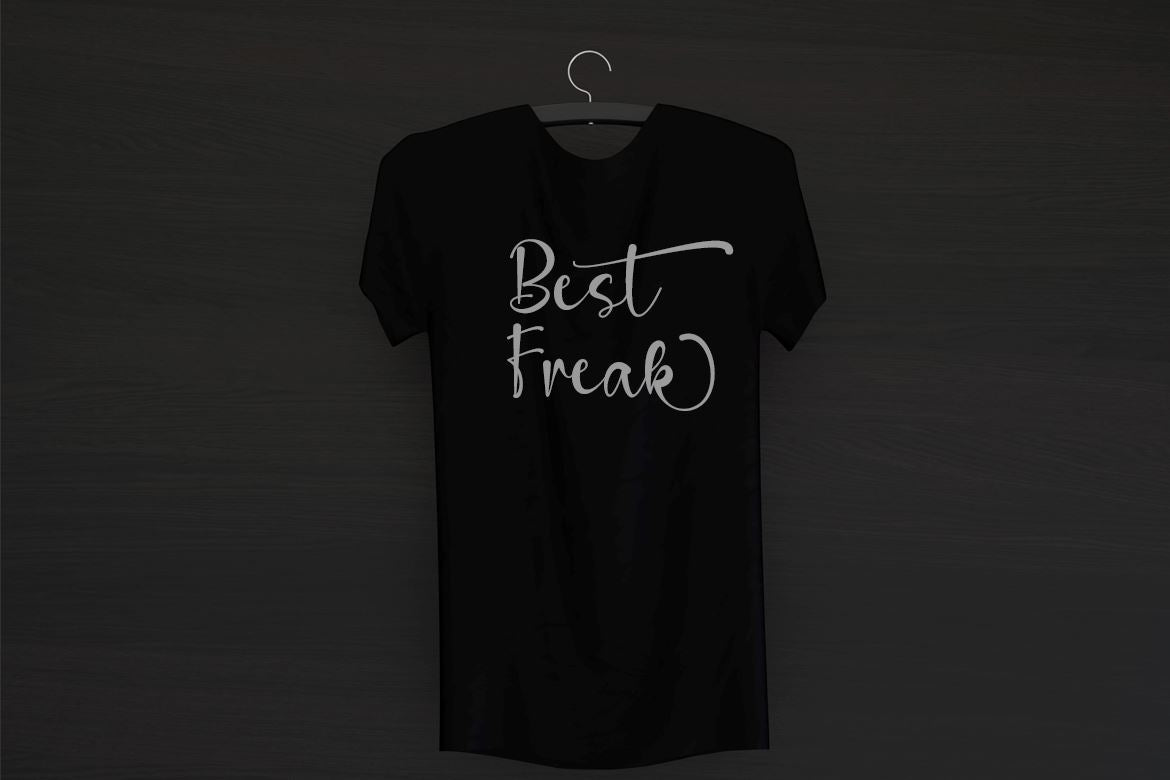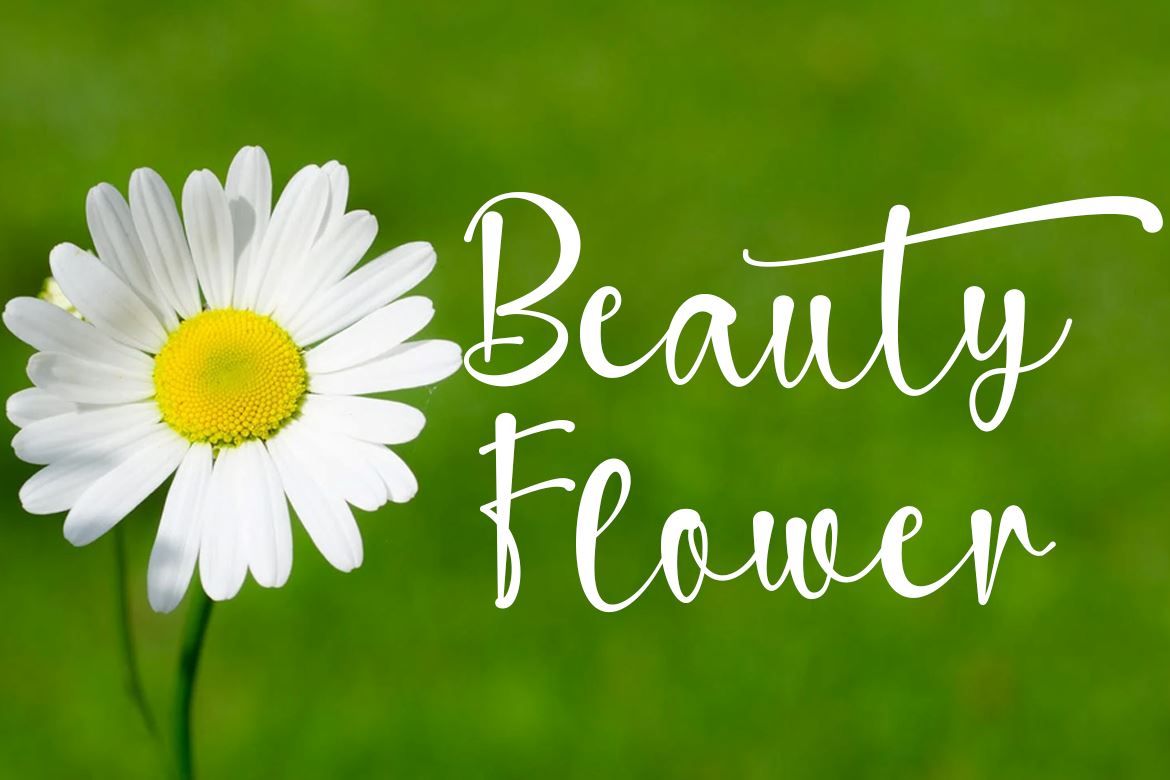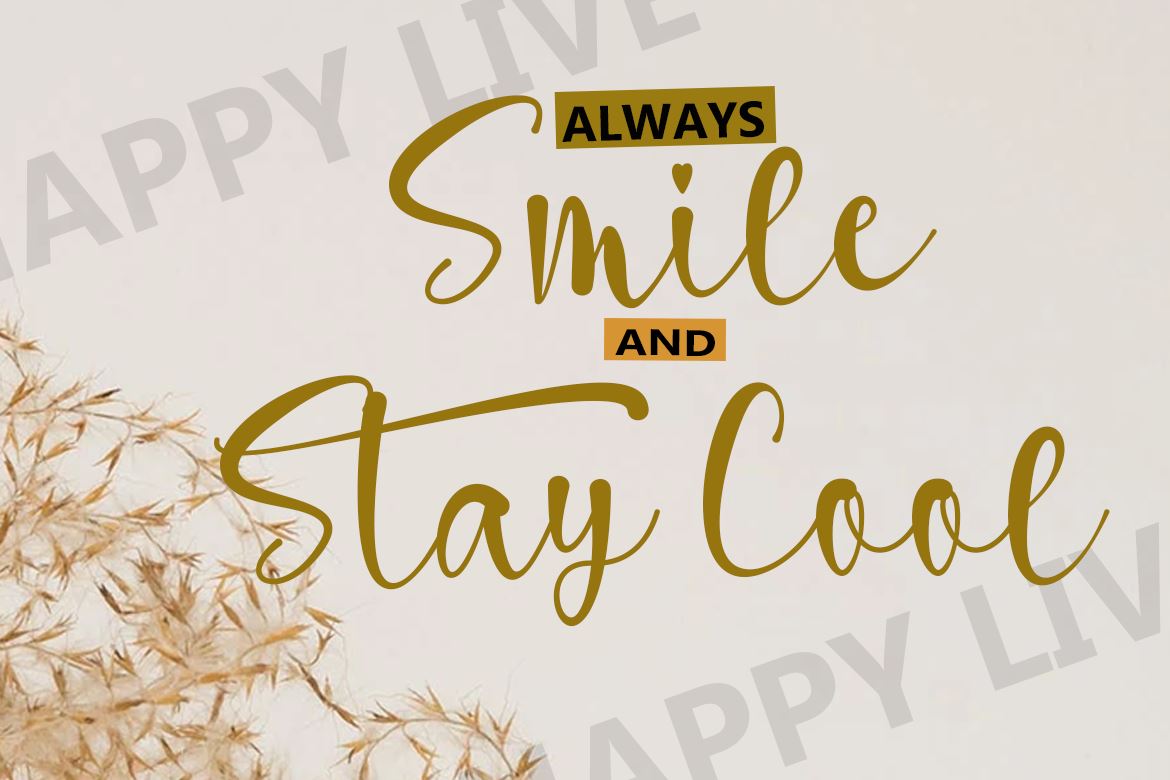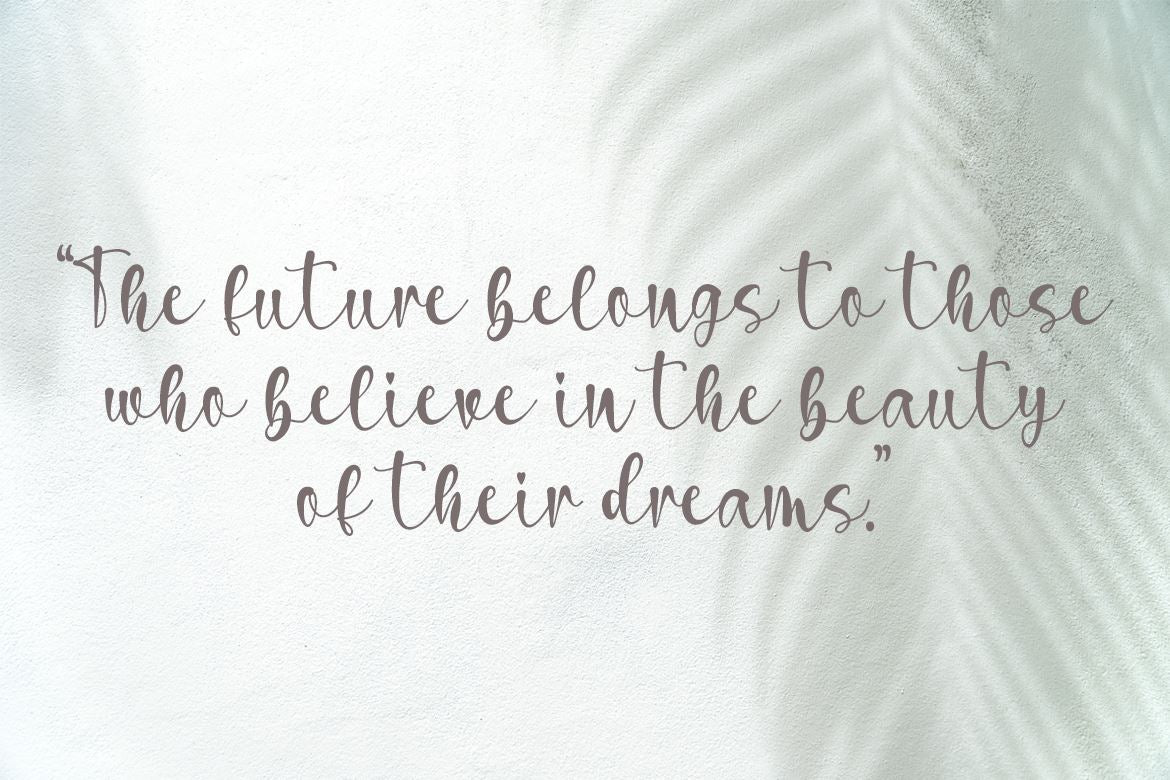
Sainthick
About Sainthick
Hello Introducing my new collection font It’s name Sainthick is a flowing handwritten font, described by an elegant touch, perfect for your favorite projects. Fall in love with its incredibly distinct and timeless style and use it to create spectacular designs! FEATURES : – TTF/OTF/WOFF – Ligatures – Uppercase and Lowercase letters – Numbering and Punctuations – Multilingual Support – Works on PC or Mac – Simple Installation – Support Adobe Illustrator, Adobe Photoshop, also works on Microsoft Word Hope you Like it. Thanks.